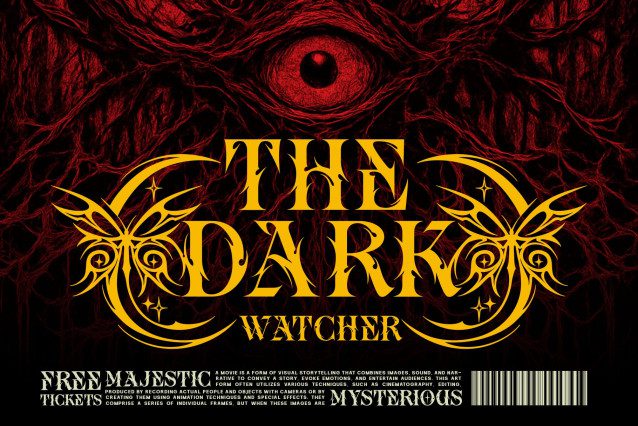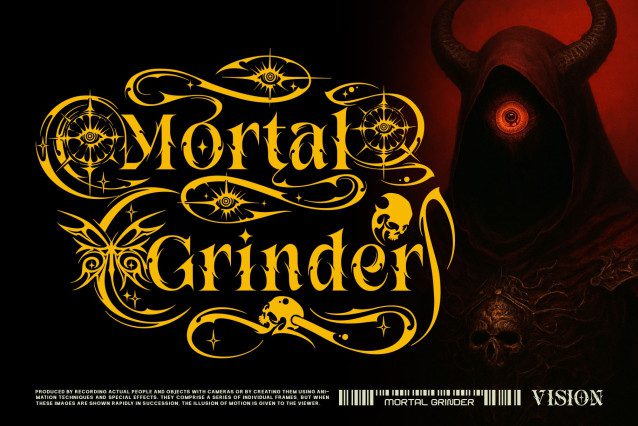
Ocular Doom Font
Ocular Doom Font, a chilling new display typeface straight from the creative crypts of Alit Design Studio. This font is not merely seen; it is felt. It channels the spirit of gothic horror, blackletter traditions, and occult mysticism into every sharp, angular character.
Ocular Doom is a “feature-rich” beast, armed with over 950 glyphs. Its true, terrifying power is unlocked through its vast collection of alternates. Discover breathtaking stylistic sets that encase letters in mystical, all-seeing eye sigils (Stylistic Sets 1 & 4) or extend them with elegant, eye-adorned swashes (Stylistic Sets 2 & 3).
But the horror doesn’t stop there. Ocular Doom is infested with decorative ligatures and terminal swashes that morph into haunting skulls, watchful eyes, and intricate flourishes. This allows you to craft truly custom, illustrative typography that looks like a hand-drawn logo.
This typeface is the ideal choice for conjuring a dark and powerful atmosphere. It’s perfect for horror movie titles, doom metal album covers, gothic apparel branding, mystical book covers, Halloween event posters, or any design project that commands attention and whispers of things unseen.
With its extensive multilingual support and multiple stylistic sets, Ocular Doom gives you the power to create truly unique and terrifying designs. Dare to look into the void?